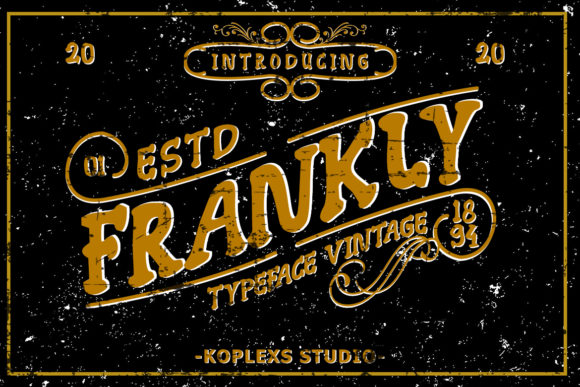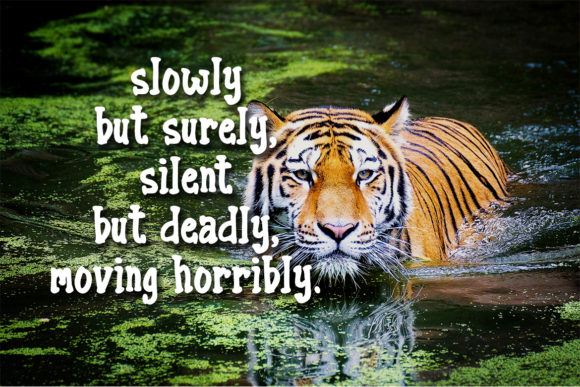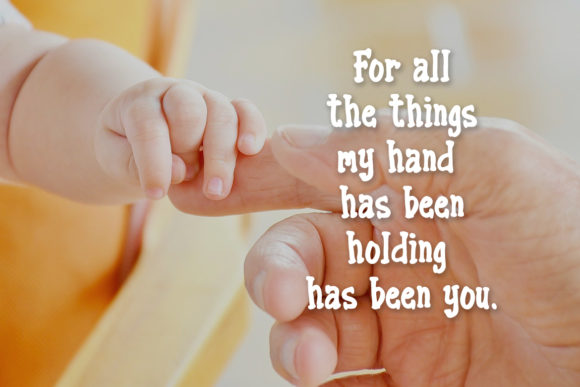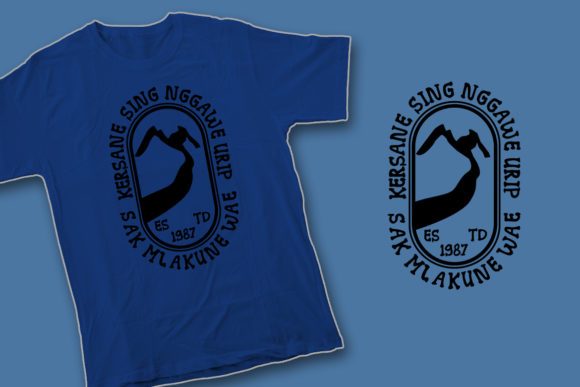
Frankly Font: A Bold Vintage Display Font for Eye-Catching Logo Design
About the Frankly Font
Unleash your creativity with Frankly Font, a versatile font perfect for a wide range of applications. Frankly is a bold display font, carefully crafted to become a true favorite. Its casual charm makes it appear down to earth, easy to read and, ultimately, versatile as vintage. This font will look amazing in any context, whether it’s used on a background, logo or as a standalone title!
Frankly Font’s bold, casual nature makes it ideal for headlines, short impactful statements, logos, and posters where a friendly yet confident message is desired. It works exceptionally well in branding for businesses with a vintage-inspired aesthetic, craft breweries, or casual clothing lines. However, its weight and slightly condensed letterforms make it less suitable for body text or UI elements requiring high readability over extended lengths.
Consider pairing Frankly with a clean sans-serif like Montserrat for a balanced contrast, or a more playful script font such as Pacifico for a retro feel, depending on your project’s needs. For a more sophisticated look, a light-weight serif like Lora can add a touch of elegance without overwhelming Frankly’s boldness.
Frankly’s overall personality is best described as approachable yet confident; it’s bold without being aggressive, friendly without being childish. This makes it a versatile choice for projects needing a strong visual identity without sacrificing approachability.
Frankly Font Usage Examples
Frankly Font Example